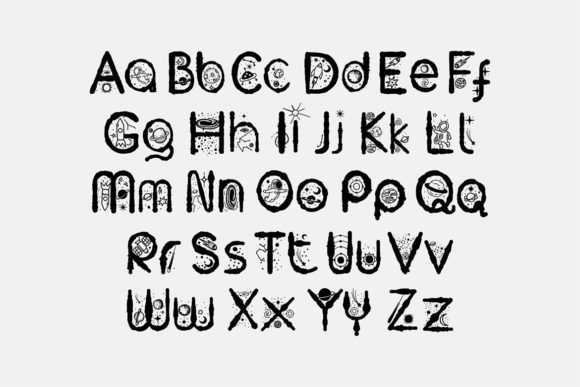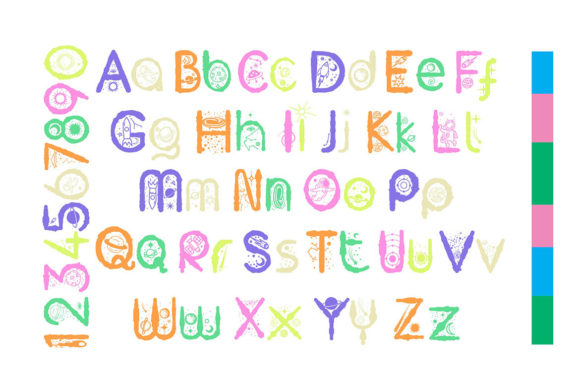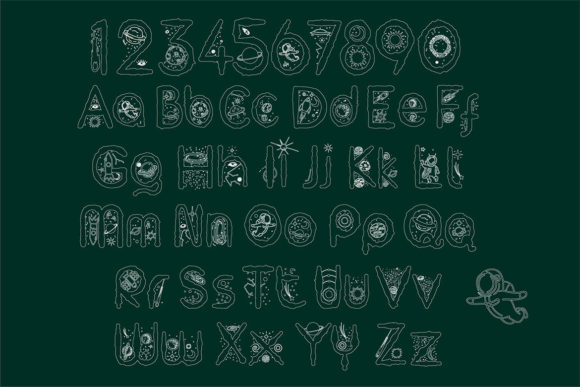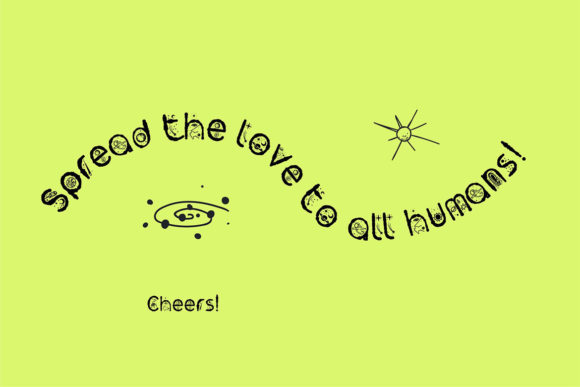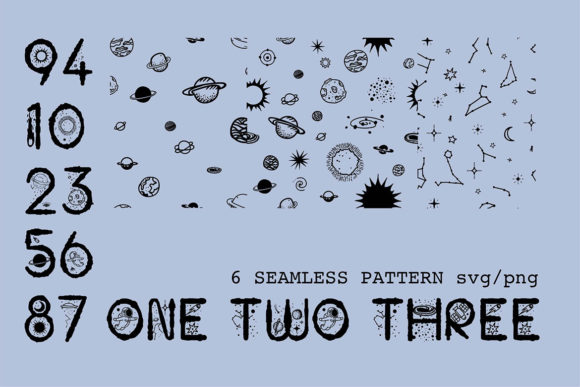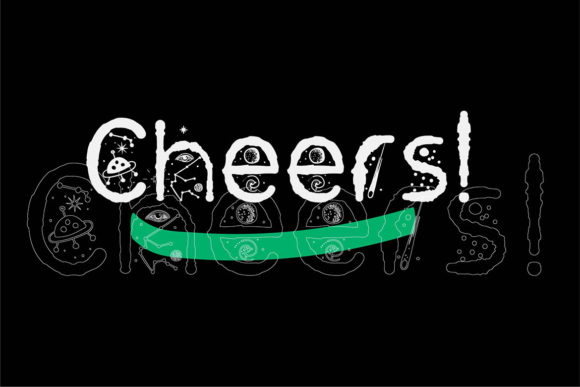
Cosmos Font: A Stellar Addition to Your Design Arsenal
In the vast universe of typography, a new star has emerged. Introducing Cosmos Font, a charming, hand-drawn decorative font that is out of this world. This delightful font is adorned with small space-themed items, making it a perfect fit for designs that are astronomically inspired.
What is Cosmos Font?
Cosmos Font is a unique, hand-drawn typeface that combines classic lettering with a touch of celestial whimsy. Each letter is carefully crafted and decorated with tiny space-themed elements, such as stars, planets, and spaceships. This font is sure to add a dash of personality to any design project.
Perfect for Space-Themed Designs
Cosmos Font is ideal for a wide range of space-themed projects, including:
- Books and diaries about space, astronomy, or science
- Posters and flyers for stargazing events or space exhibitions
- Websites and blogs focused on space exploration or astronomy
- Social media graphics and posts about space and science
Kids’ Designs and Pastel Linen
But Cosmos Font’s uses don’t stop there. Its playful, whimsical nature makes it a great fit for:
- Kids’ clothing and accessories, such as t-shirts, hoodies, and tote bags
- Pastel-colored linen and home decor, like pillowcases, sheets, and wall art
- Craft projects, such as scrapbooking, card making, and DIY gifts
Why Choose Cosmos Font?
With Cosmos Font, you’ll get:
- A unique and eye-catching typeface that will make your designs stand out
- A hand-drawn, high-quality font that is both elegant and playful
- A versatile font that can be used for a wide range of design projects
Tips for Using Cosmos Font
To get the most out of Cosmos Font, try these tips:
- Use it as a headline font to add visual interest and personality to your designs
- Pair it with a simple, sans-serif font for body text to create contrast and hierarchy
- Experiment with different colors and textures to add depth and dimension to your designs
- Don’t be afraid to get creative and try new things – Cosmos Font is designed to inspire imagination!
Cosmos Font is a fresh and exciting addition to the world of typography. With its unique blend of classic lettering and space-themed whimsy, it’s sure to delight designers and crafters alike. Whether you’re working on a space-themed project or just looking for a font that’s out of this world, Cosmos Font is a stellar choice.